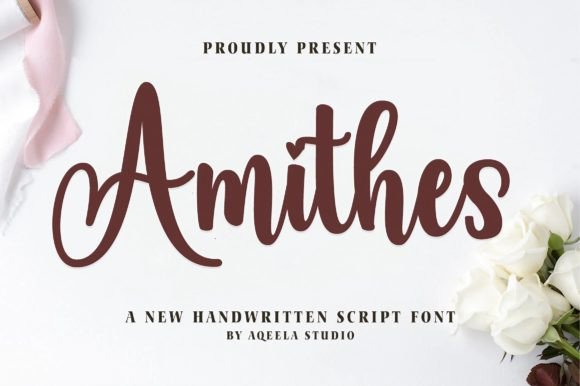
Introducing Amithes Font: The Epitome of Laid-Back Elegance
In the realm of typography, few fonts manage to capture the essence of laid-back elegance and freshness as effortlessly as Amithes. This lovely handwritten font has been making waves in the design community, and for good reason. Its organic lines, flowing strokes, and carefree vibe make it an ideal choice for a wide range of design projects. In this article, we’ll delve into the world of Amithes font, exploring its unique characteristics, uses, and benefits.
The Characteristics of Amithes Font
Amithes font is a masterpiece of handwritten typography, boasting a unique blend of elegance and playfulness. Its organic lines and flowing strokes give it a natural, effortless feel that’s hard to resist. The font’s carefree vibe is perfect for designers looking to add a touch of personality to their work. Here are some of the key characteristics that make Amithes font stand out:
- Laid-back elegance: Amithes font exudes a sense of relaxed sophistication, making it perfect for designs that require a touch of refinement.
- Organic lines: The font’s organic lines and flowing strokes give it a natural, hand-crafted feel.
- Freshness: Amithes font has a youthful, vibrant energy that’s perfect for designs that require a bit of playfulness.
The Uses of Amithes Font
Amithes font is incredibly versatile, making it suitable for a wide range of design projects. Here are some of the ways you can use Amithes font to elevate your designs:
- Branding: Amithes font is perfect for creating unique and memorable brand identities. Its warm and distinct touch makes it ideal for logos, business cards, and letterheads.
- Invitations: The font’s elegant and refined feel makes it perfect for creating beautiful invitations for weddings, parties, and other special events.
- Social media visuals: Amithes font is a great choice for creating engaging social media visuals, such as graphics, posters, and flyers.
- Packaging design: The font’s playful and youthful energy makes it perfect for packaging design, particularly for brands that want to convey a sense of fun and approachability.
The Benefits of Using Amithes Font
So, why should you choose Amithes font for your next design project? Here are some of the benefits of using this lovely handwritten font:
- Unique and distinctive: Amithes font is a one-of-a-kind font that will help your designs stand out from the crowd.
- Easy to read: Despite its playful and handwritten feel, Amithes font is incredibly easy to read, making it perfect for body text and headings.
- Versatile: Amithes font is suitable for a wide range of design projects, from branding and invitations to social media visuals and packaging design.
- High-quality: Amithes font is a high-quality font that’s been carefully crafted to ensure that it looks great in any design.
Tips for Using Amithes Font
To get the most out of Amithes font, here are some tips to keep in mind:
- Use it sparingly: Amithes font is a bold and distinctive font, so use it sparingly to avoid overwhelming your design.
- Pair it with other fonts: Amithes font pairs well with other fonts, particularly sans-serif fonts like Arial and Helvetica.
- Experiment with colors: Amithes font looks great in a variety of colors, so don’t be afraid to experiment and find the perfect hue for your design.
- Pay attention to spacing: Make sure to pay attention to spacing and kerning when using Amithes font to ensure that it looks its best.
In conclusion, Amithes font is a lovely handwritten font that’s perfect for designers looking to add a touch of laid-back elegance and freshness to their work. Its organic lines, flowing strokes, and carefree vibe make it an ideal choice for a wide range of design projects, from branding and invitations to social media visuals and packaging design. With its unique characteristics, versatility, and high-quality design, Amithes font is sure to become a favorite among designers.
- What is Amithes font?: Amithes font is a lovely handwritten font with a laid-back elegance and a sense of freshness.
- What is Amithes font used for?: Amithes font is suitable for a wide range of design projects, including branding, invitations, social media visuals, and packaging design.
- Is Amithes font easy to read?: Yes, Amithes font is incredibly easy to read, making it perfect for body text and headings.